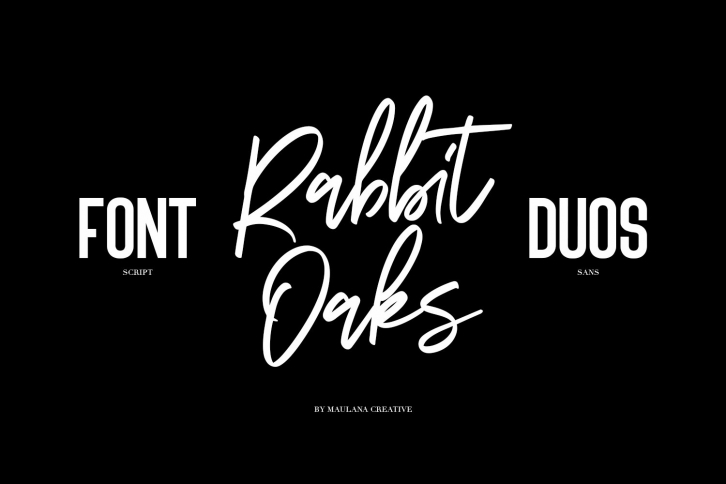
Rabbit Oaks - Font Duos Download
Rabbit Oaks is a great font that was designed by Maulana Creative. Imagine the amount of combinations you can create using this font! The archive is 17.24 MB and it was released on April 25, 2020. Rabbit Oaks looks beautiful on wedding invitations, greeting cards, logos, posters, labels, t-shirt designs, logos, business cards and is perfect for use in ink or watercolor works, fashion, magazines, packaging and food menus, children's books and more!